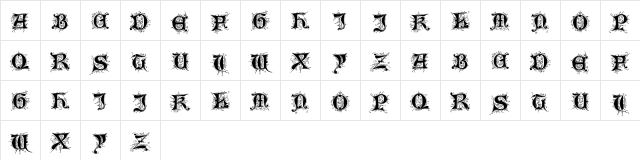
Tosca Regular Free Font
Tosca Regular
Foundry: Paulo W, Intellecta Design
Design Context for Tosca
Tosca is a composed and adaptable typeface that performs quietly and consistently across a wide range of design contexts.